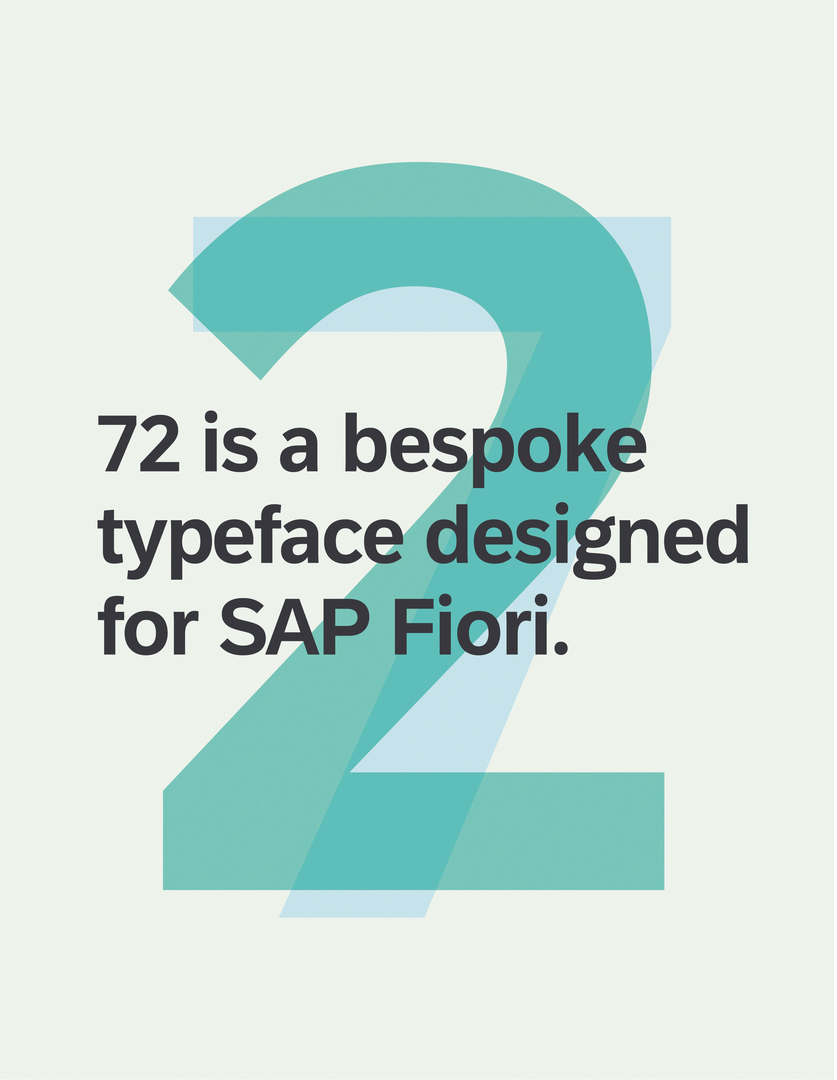
With this bespoke typeface for its design language system, SAP Fiori, the company has developed a robust and clear typography which presents complex business data in a comprehensible and clear manner. 72 Font Family for SAP Fiori replaces the original typographical system based on two fonts with a font family of seven. These are characterised by straight, simple lines, larger apertures and open counters as well as decreased character ambiguity. Thus, the software provider has established a modern and flexible font, highlighting the design-centric approach of the company.